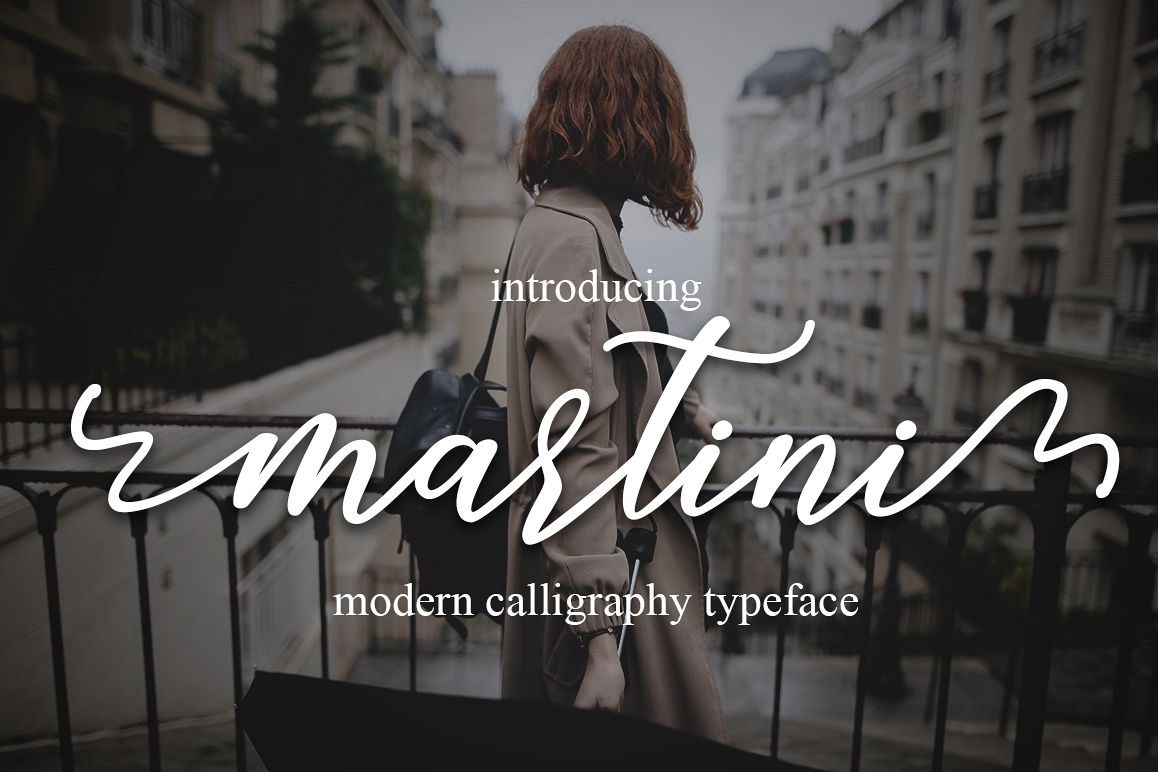
martini script
INTRODUCING
Martini  Script is a modern calligraphy font with the current handwriting style, this font is perfect for branding, wedding invites, magazines, mugs, business cards, quotes, posters, and more, you can try first if you want to buy this font.